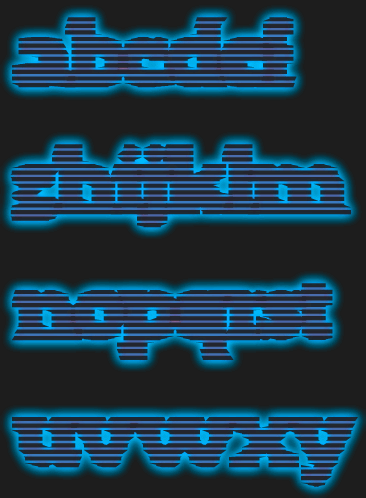
Hey Agent Demonic Ladybug, i made this sample for you remixing your font in a different filtering (1,6x0,6), changing the sensation. hope you'll like.
This is great! I like the bold and rough style on this font. 10/10
Thanks! I meant it to both be ragged and legible at small sizes.
I have a suggestion: I think the letter "g" would be better if the tail is visible and a bit lower.
This is great. Well worth expanding the letter set I think.
Actually, the g is binocular form so it doesn't have a tail. But I'll experiment. And more characters coming.